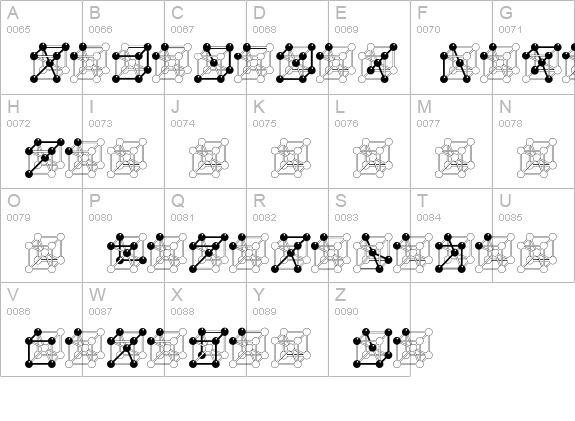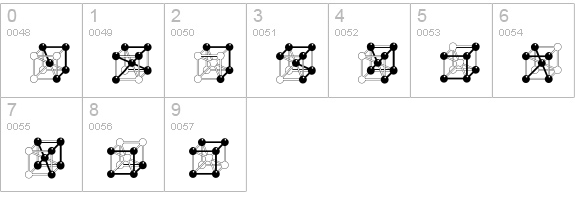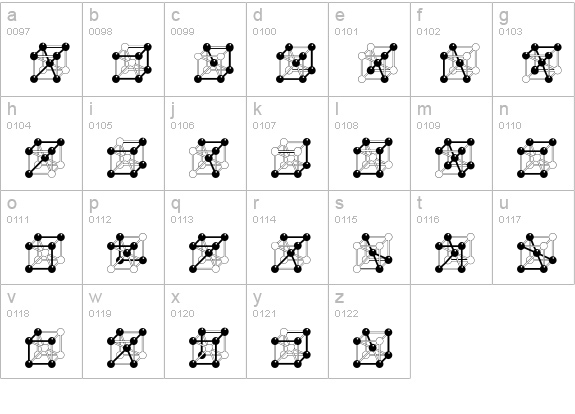
MetallicElement-KanaRegular Font Details
MetallicElement-KanaRegular is a sleek and modern font that exudes a sense of sophistication and elegance. Its metallic-inspired design gives it a unique and eye-catching appearance, making it perfect for adding a touch of luxury to any project. This font features clean lines and sharp angles, creating a bold and impactful look that is sure to make a statement. Whether used for branding, packaging, or graphic design, MetallicElement-KanaRegular is versatile and adaptable to a variety of design needs. Best of all, MetallicElement-KanaRegular is available for free download at FontsMarket.com. This means you can easily access this stunning font and incorporate it into your projects without any cost. Don't miss out on this fantastic opportunity to elevate your designs with MetallicElement-KanaRegular!